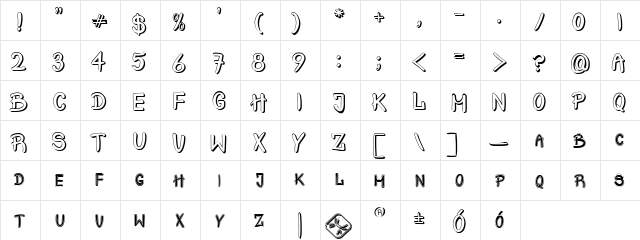
Crash Test Shadow Regular
Design Context for Crash Test Shadow Typeface
Crash Test Shadow is built around its visual character rather than neutral utility — its distinctive forms are designed to make an impression at display sizes.
Font Pairing: Pair with a clean neutral sans-serif for body copy to let Crash Test Shadow's character lead without overwhelming the composition.
Pro Tip: Treat Crash Test Shadow as the centrepiece of your typographic hierarchy. One strong heading set in a decorative face can carry an entire layout.